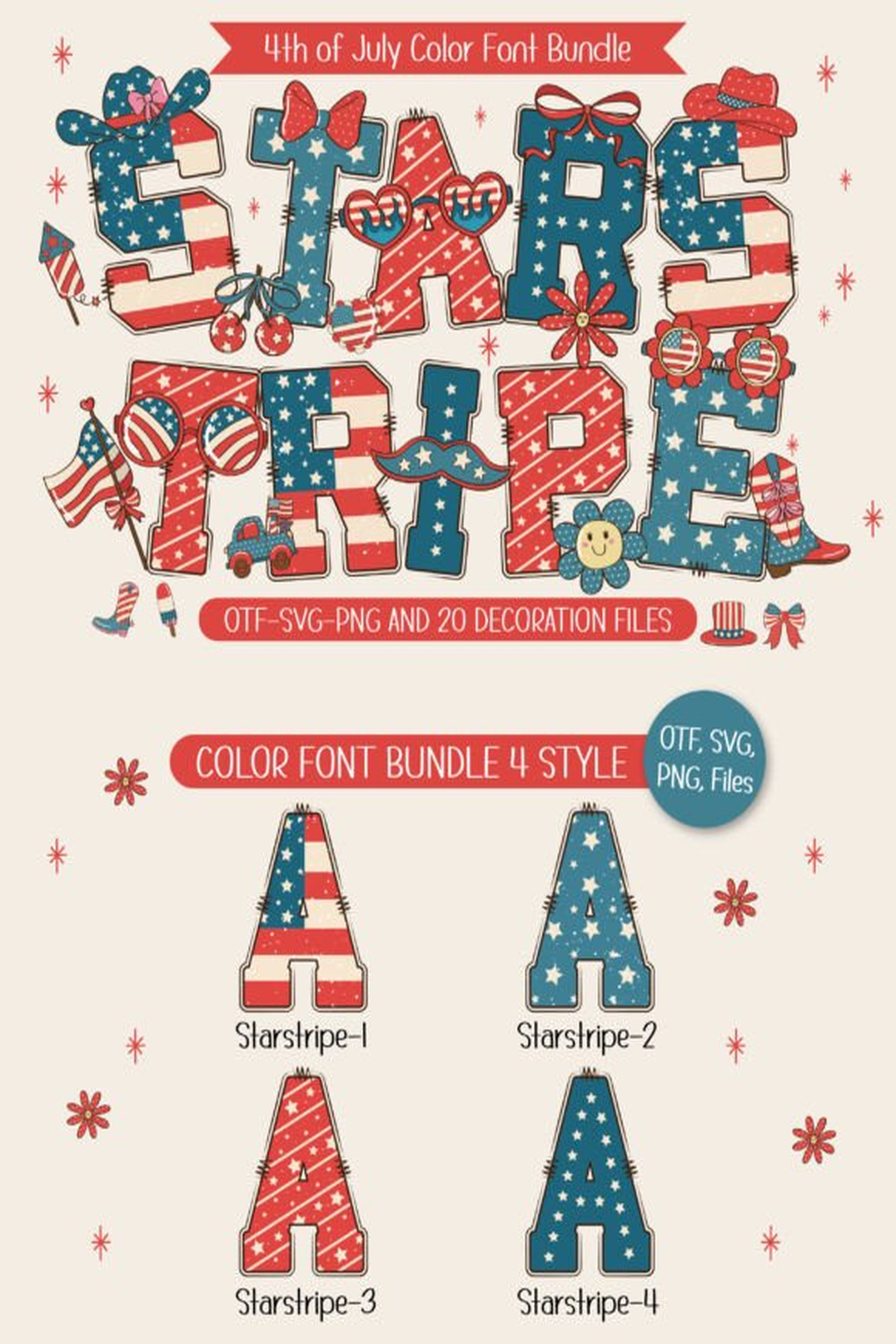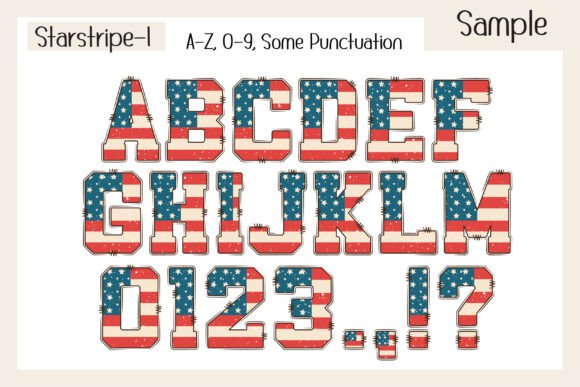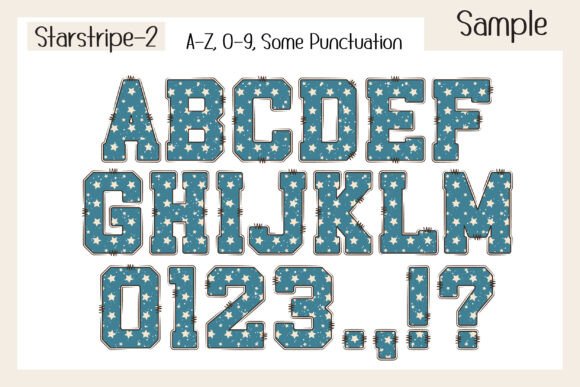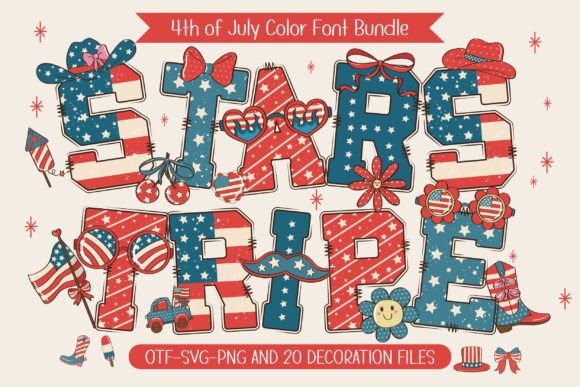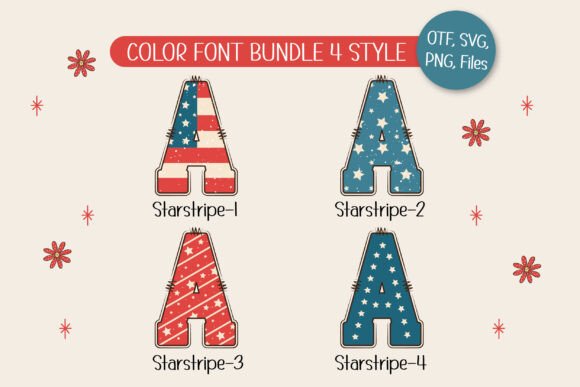
Starstripe Font: Patriotic Display Font for 4th of July & DIY Projects
About the Starstripe Font
Meet Starstripe Font, a stunning font that brings a touch of elegance and professionalism to any design. Introducing “Starstripe” a festive 4th of July-themed font that brings the spirit of celebration to life! Each letter is styled with elements of the American flag—stars, stripes, and a patriotic red, white, and blue color palette—creating a cute, fun, and handmade look. This 4-color font is perfect for adding a cheerful touch to your holiday projects. Whether you’re designing 4th of July posters, patriotic quotes, T-shirts, party invitations, banners, stickers, scrapbook pages, DIY crafts, and more, “Starstripe” delivers bold festive charm. Plus, it includes 20 matching doodle cliparts to complete your patriotic creations with style.